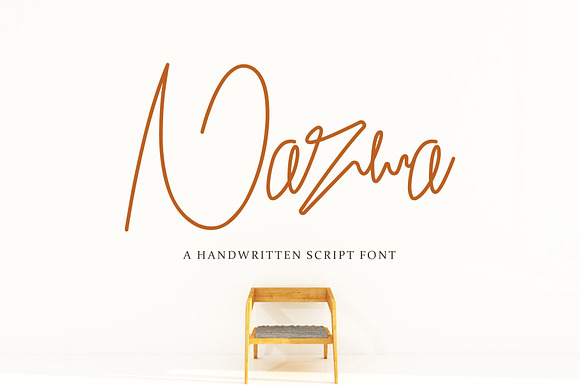
Nazwa Handwritten Font
Nazwa Handwritten Font by dankudraw is a font selected for branding, posters, packaging, typography.
Why Nazwa Handwritten Font is worth a look
Nazwa Handwritten Font by dankudraw fits naturally into Branding, posters, packaging, typography.